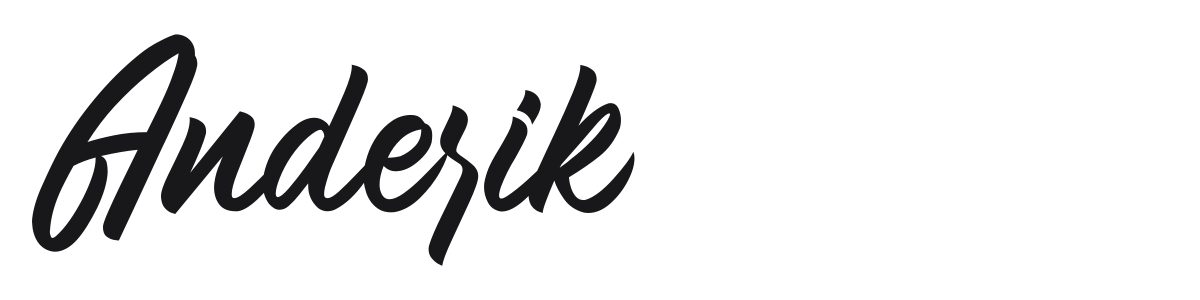
Anderik
by GFR Creative · Website
Anderik is a bold brush script with the loose, confident energy of hand-lettering done with a wide-tipped brush. Thick downstrokes and thin connecting hairlines create strong stroke contrast, while the fluid connections between characters keep it feeling natural rather than mechanical. It has a warmth and informality that works well for brand marks, packaging, and anything that needs a personal, made-by-hand feel.